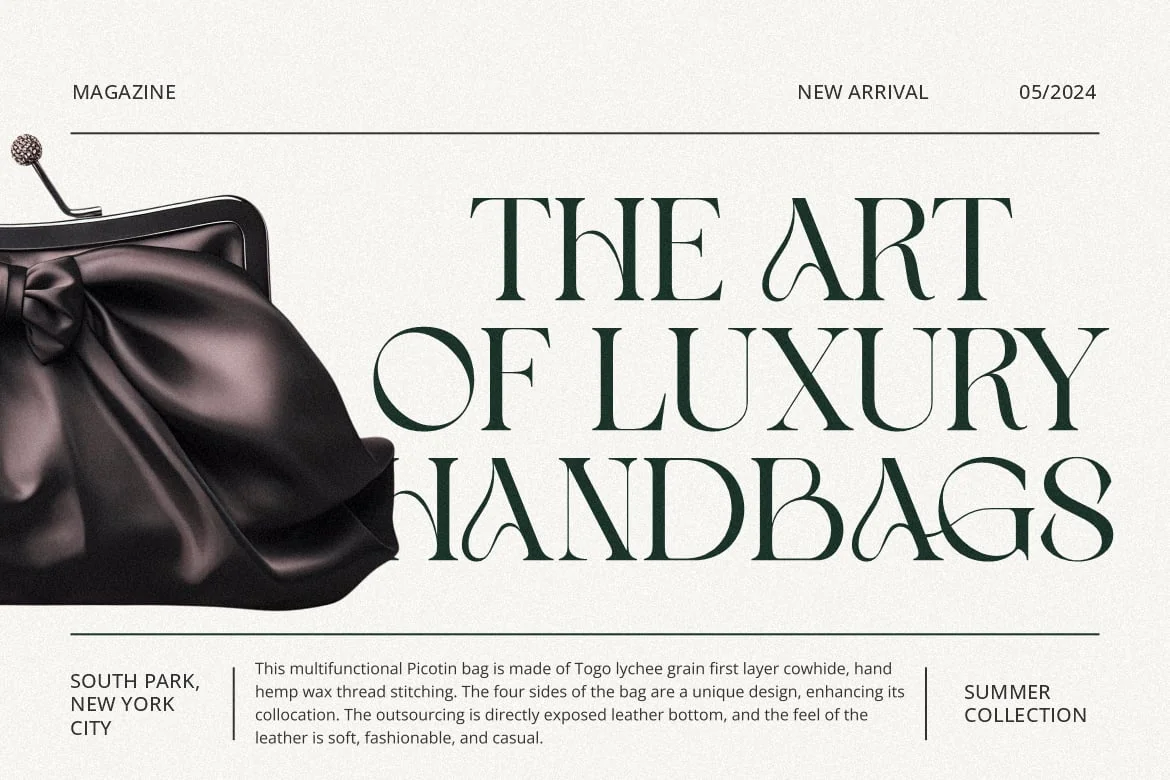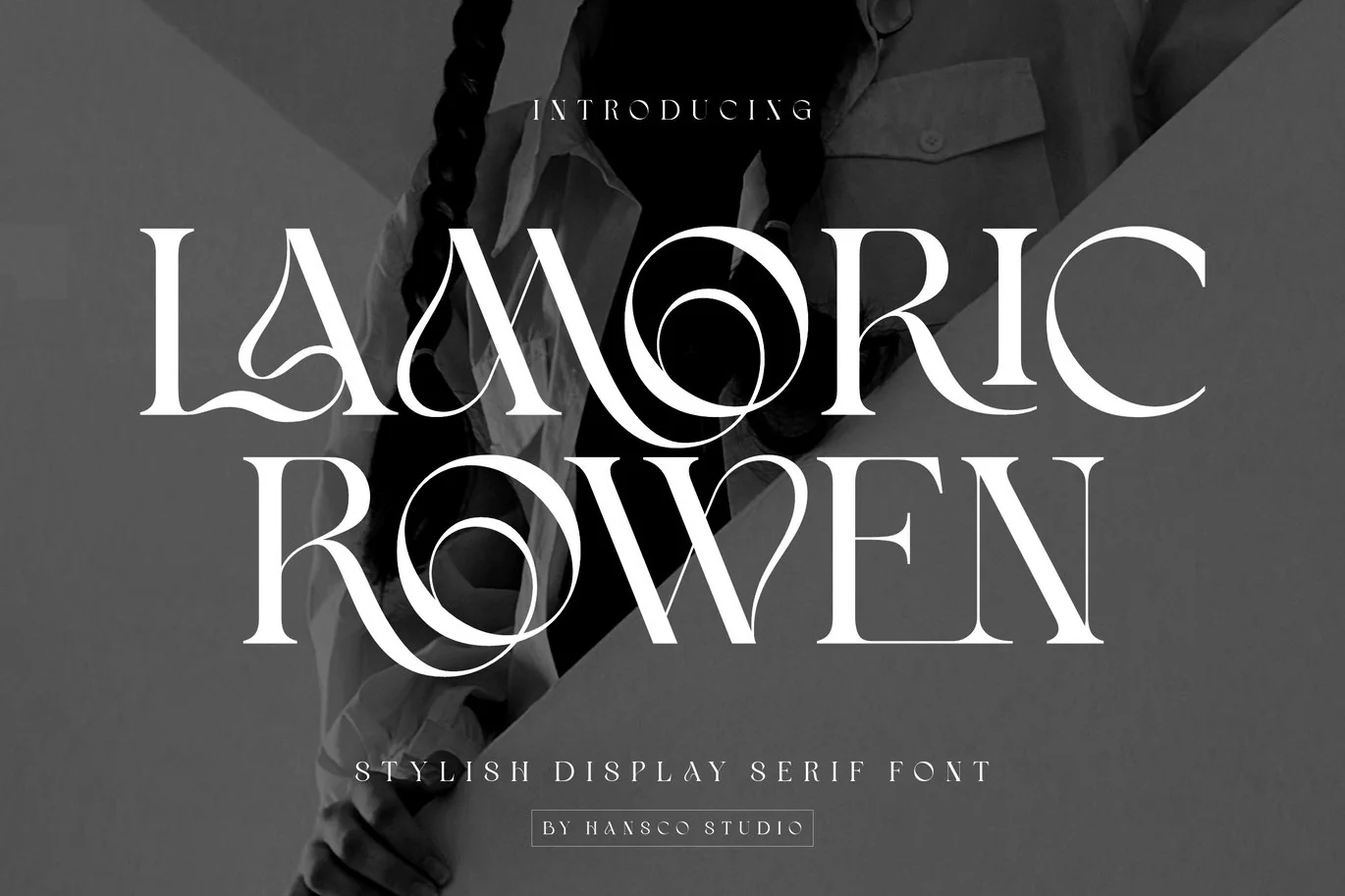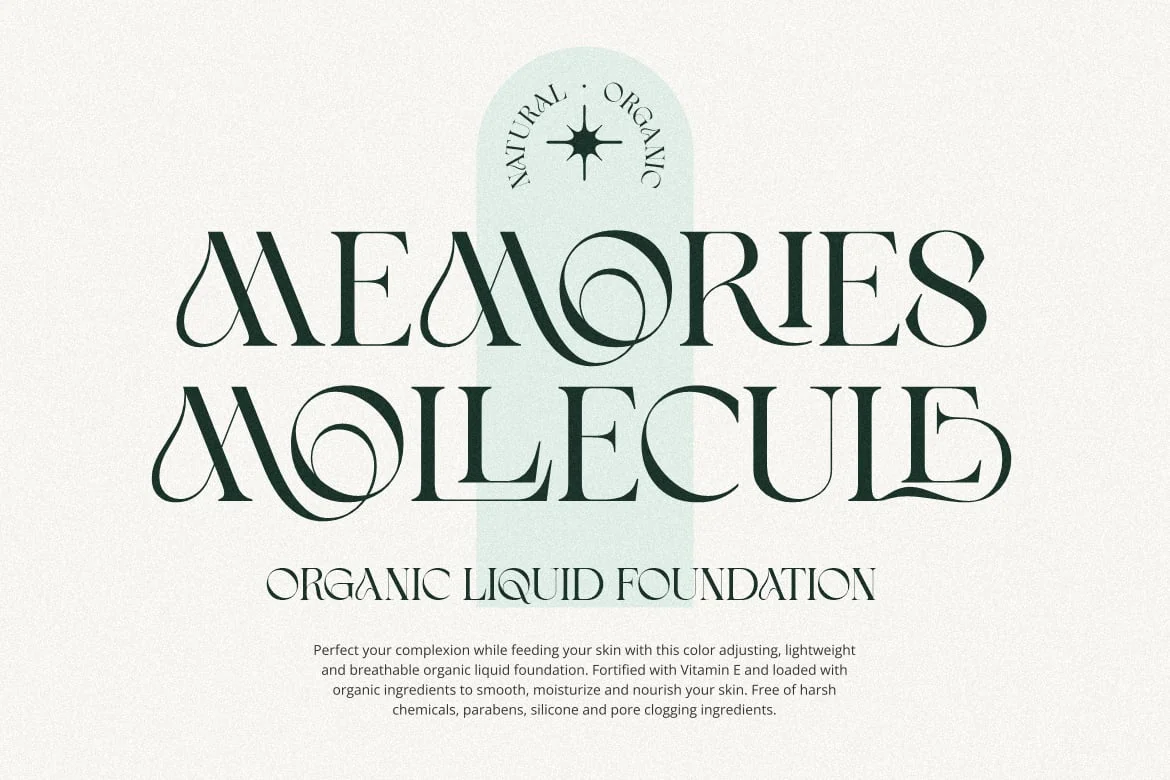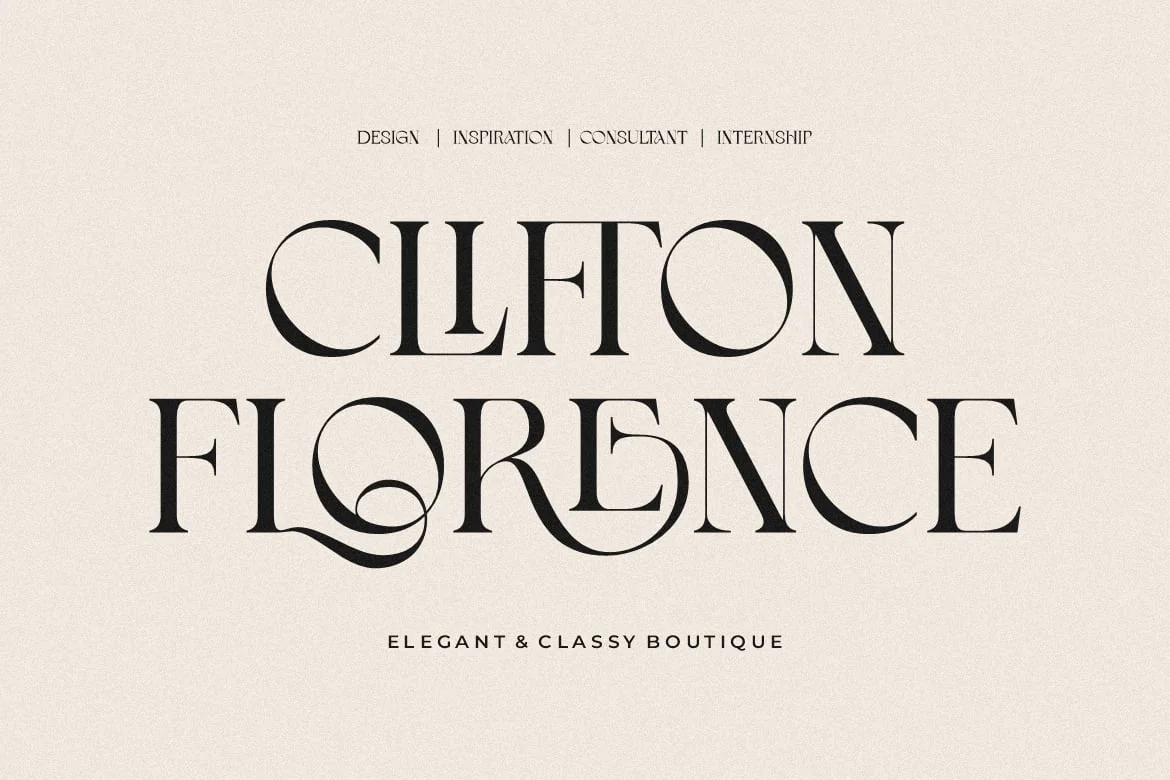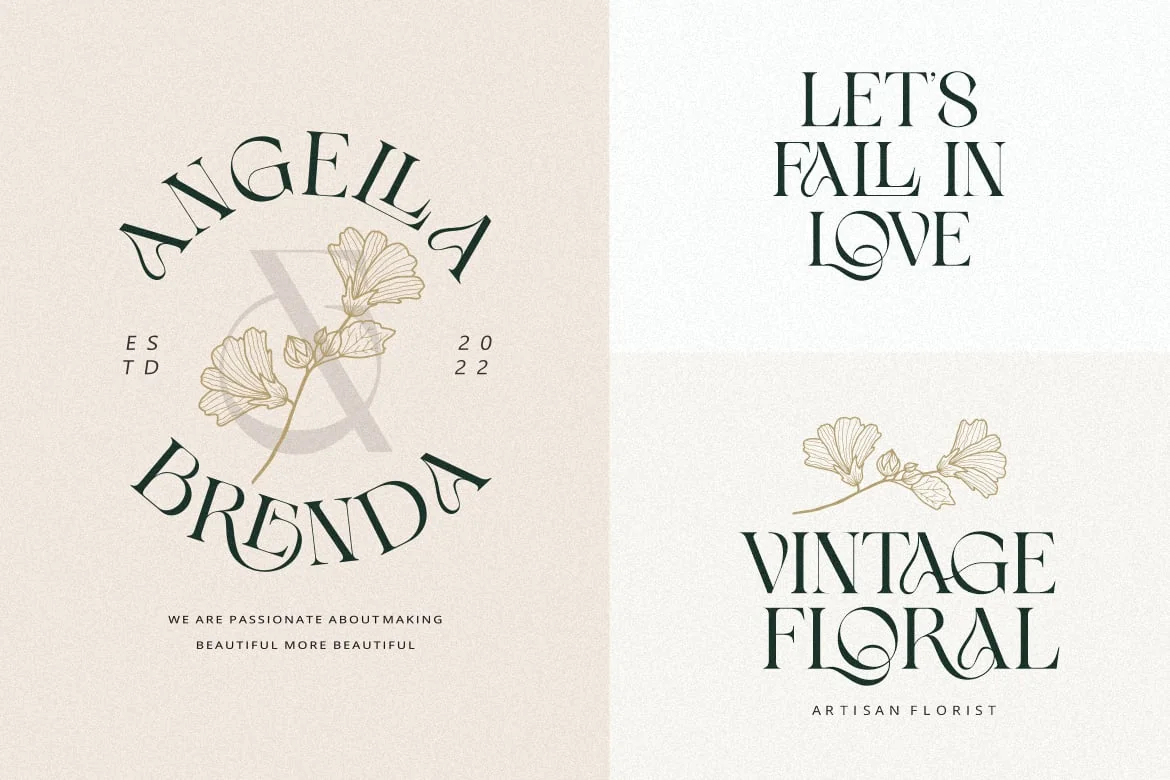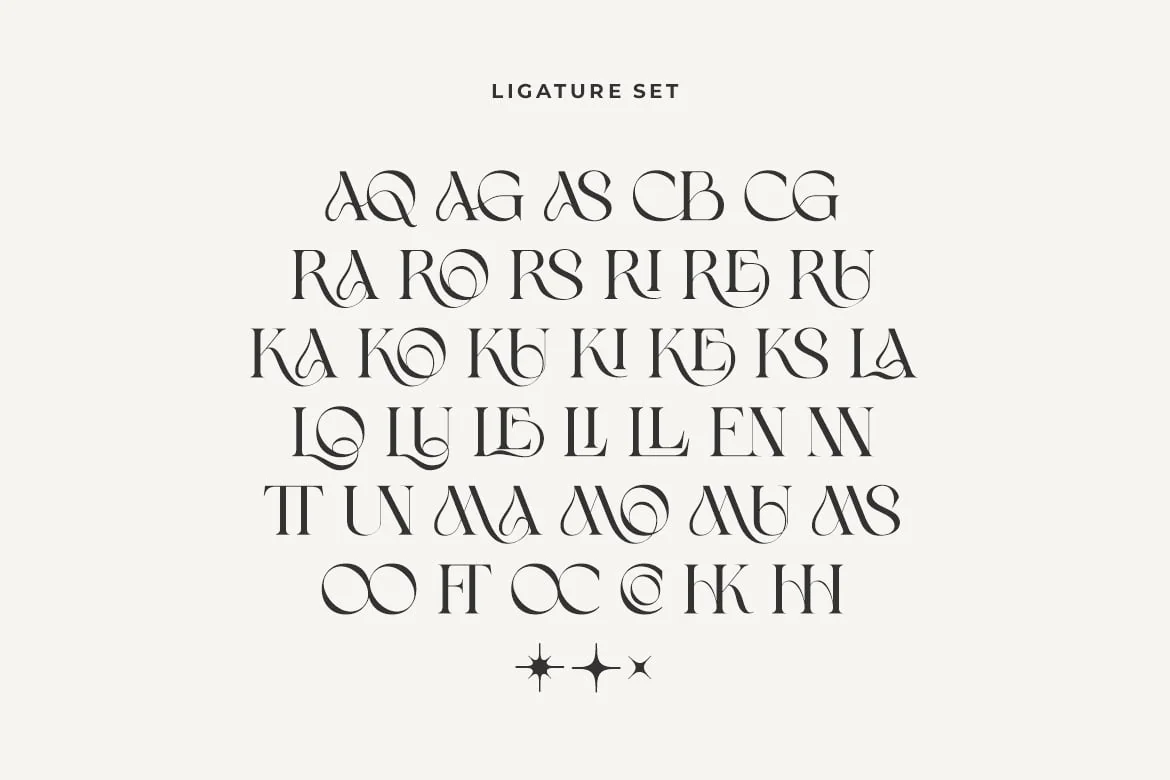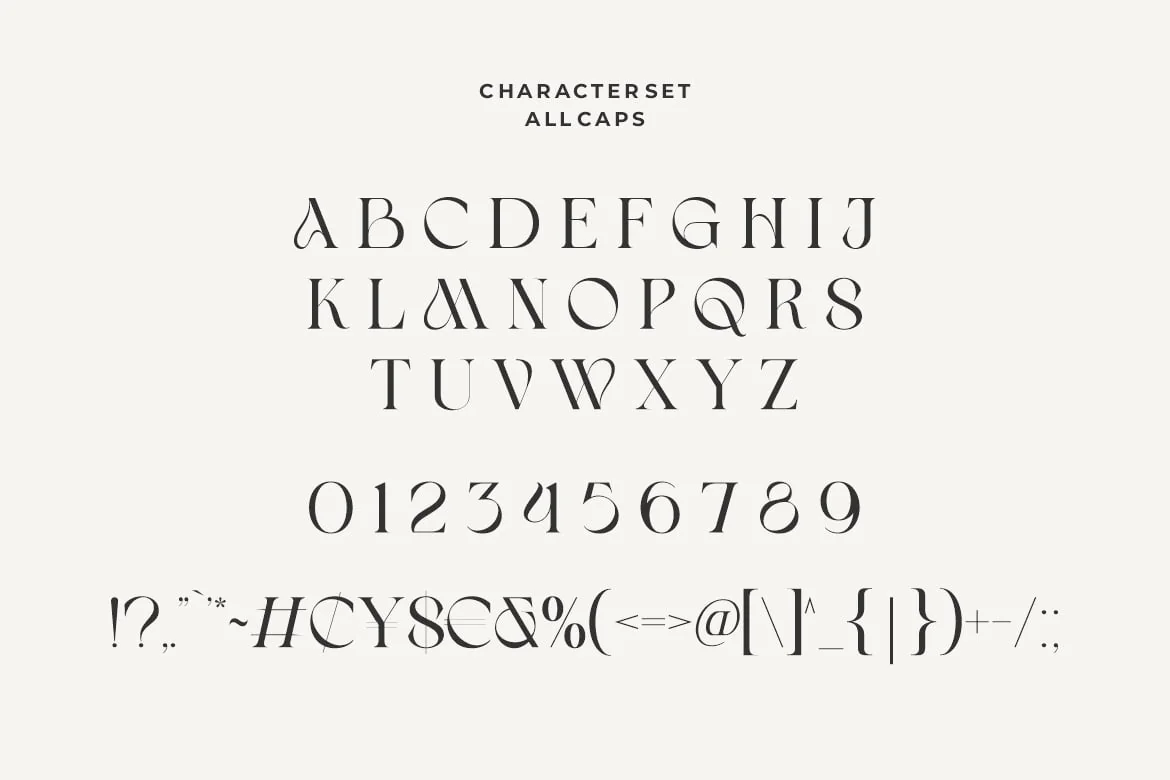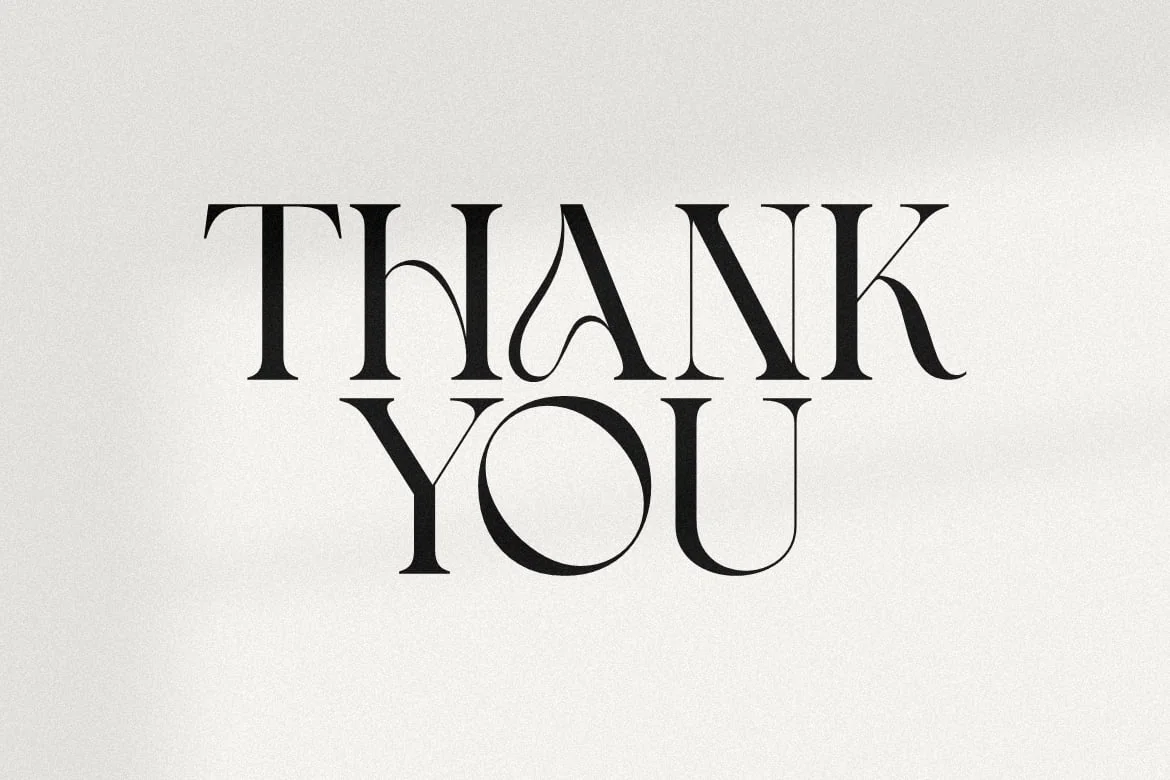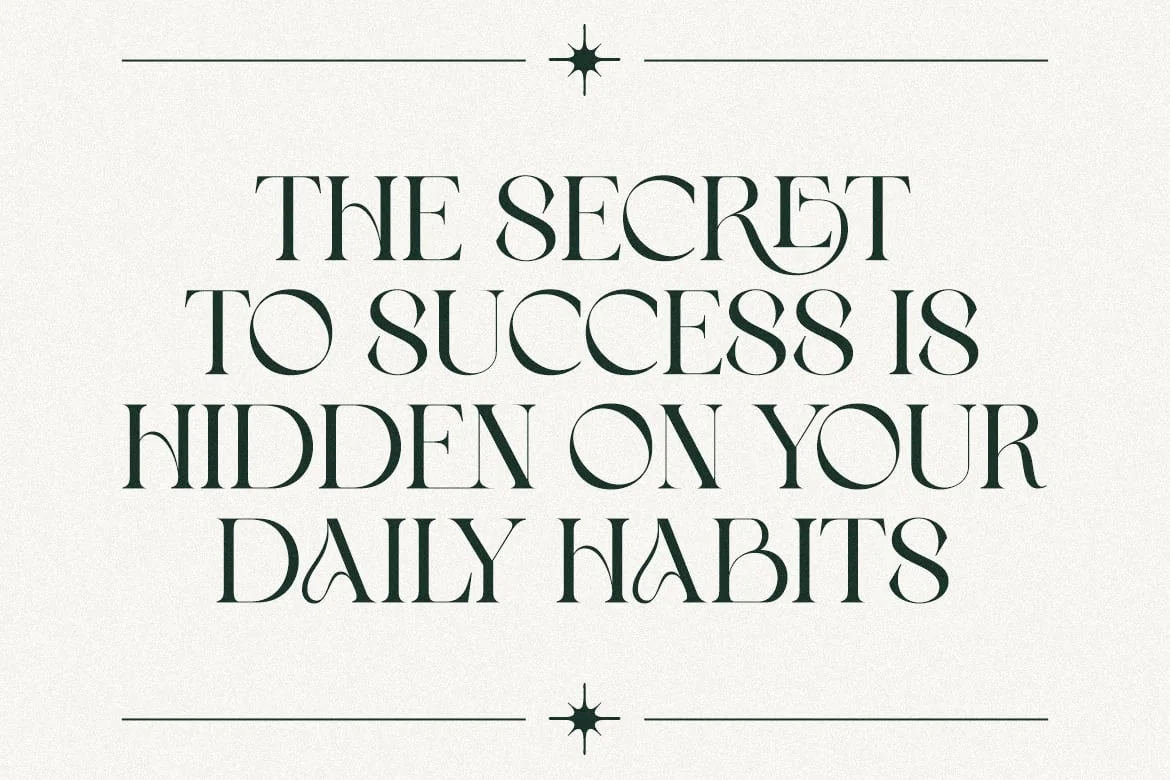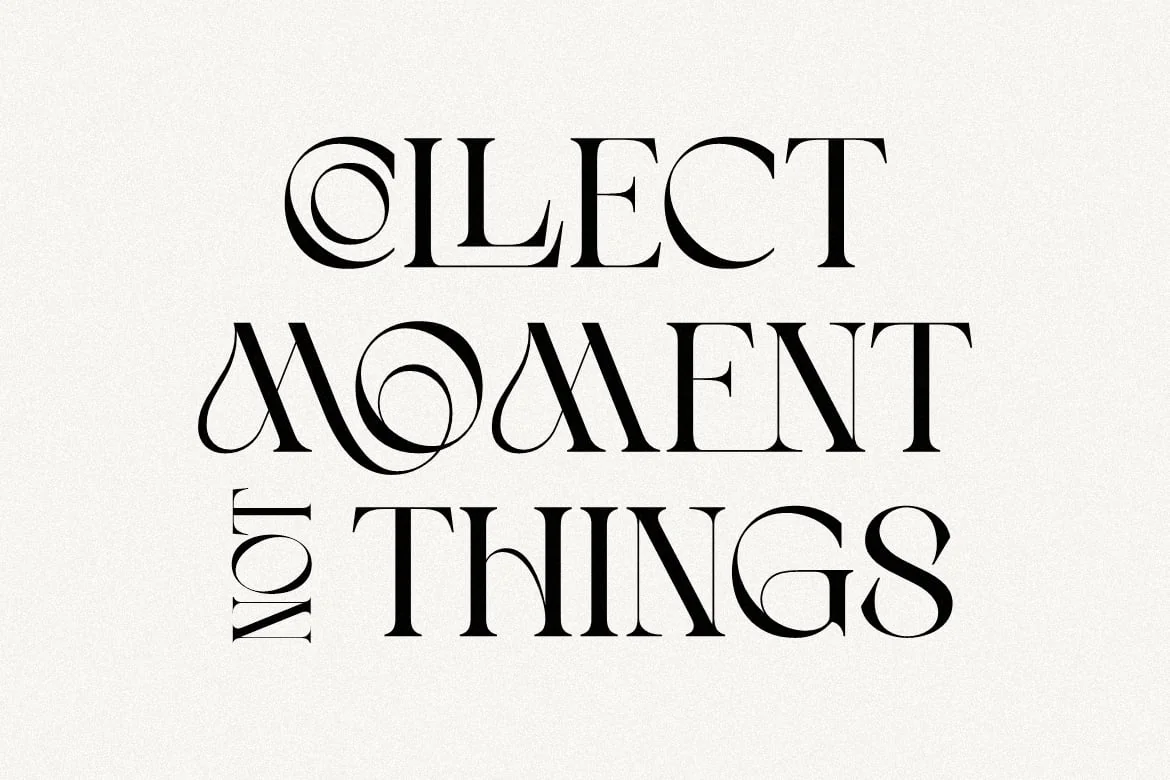
Lamoric Rowen Font
Lamoric Rowen Font is a classy display serif font with unique look that is perfect for multipurpose projects. Lamoric Rowen Font is inspired by the concept of romantic vibes and made it into a modern yet luxury style. This font is also looks elegant and will fit well in any design and very recommended for logo, crafts, posters, books, branding, quotes, print templates, packaging, invitations, product labels, advertising, wedding project and more. This font is PUA encoded which means you can access all of the charming glyphs and swashes with Character Map on Windows or Font Book on Mac.
- All Uppercase (No Lowercase)
- Number & Punctuation